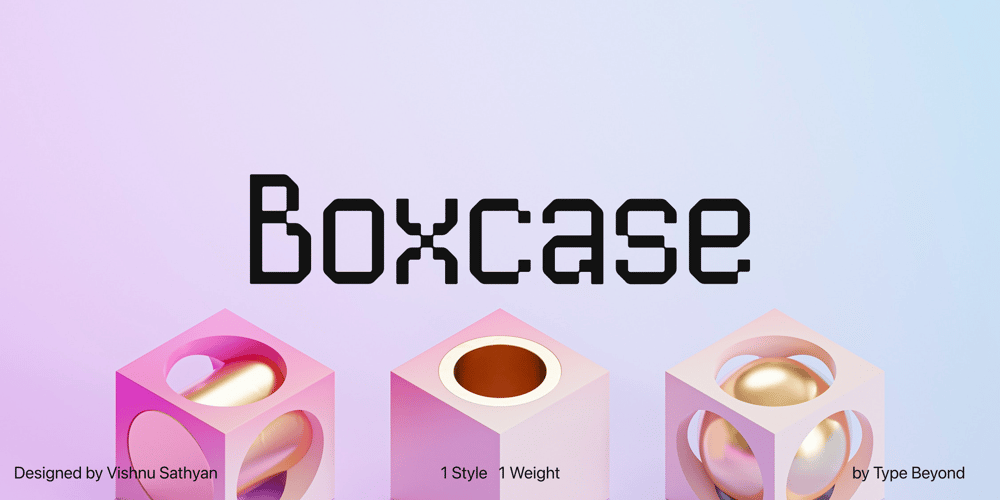
Boxcase Font Family was designed by Vishnu Sathyan and published by Vishnu Sathyan. Boxcase contains 1 styles and family package options. Boxcase is inspired by pixel fonts from the 20th century. Instead of having sharp corners, which was a limitation back then, Boxcase comes with soft touchable corners. Diagonally chopped pixels/boxes, merges smoothly with the rest of the shape, giving a slide like feel to the letterforms.